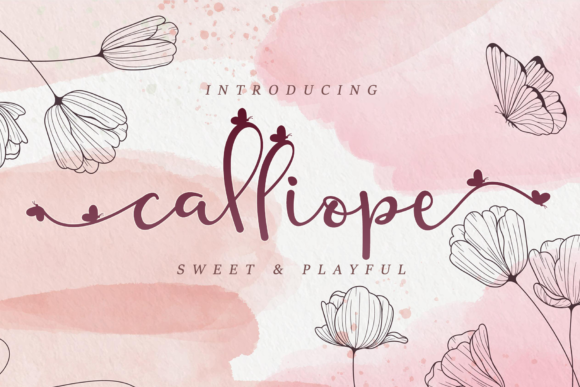
The Sweet and Playful Calliope Font: A Designer’s Delight
I still remember the design project that led me to discover the charming Calliope font. I was working on a wedding invitation for a client’s special day, and I was struggling to find the perfect script font that would add a touch of whimsy and romance to the design. That’s when I stumbled upon Calliope, a sweet and playful script font adorned with beautiful butterfly ornaments. It was love at first sight! 💕
In this article, I’ll share my experience with Calliope, its features, and how to make the most of this lovely font in your designs.
An Honest Review of Calliope Font
What I Love About Calliope ✨
- 💖 The font’s playful and elegant script style, perfect for wedding invitations, thank you cards, and quotes.
- 🦋 The beautiful butterfly ornaments that add a touch of whimsy and charm to any design.
- ✅ The font’s versatility, suitable for various design projects, from logos to business cards.
- 📝 The handwritten touch that Calliope brings to any design, making it feel more personal and special.
While Calliope is an amazing font, there are a few things to keep in mind:
- 🤔 The font’s playful style may not be suitable for very formal or corporate designs.
- ⚠️ Some users may find the butterfly ornaments a bit too ornate or distracting, depending on the design.
- Experiment with the font’s OpenType features, such as glyphs and stylistic alternates, to add more variety to your design.
The Backstory of Calliope Font
Calliope font was designed with the intention of creating a beautiful and playful script font that would add a touch of whimsy to any design. The font’s creator was inspired by the Muses of Greek mythology, particularly Calliope, the muse of epic poetry. The butterfly ornaments were added to give the font a more romantic and feminine feel.
A: Calliope font is versatile and can be used in various design projects, from wedding invitations to logos. Experiment with different font sizes, colors, and OpenType features to find the perfect look for your design.